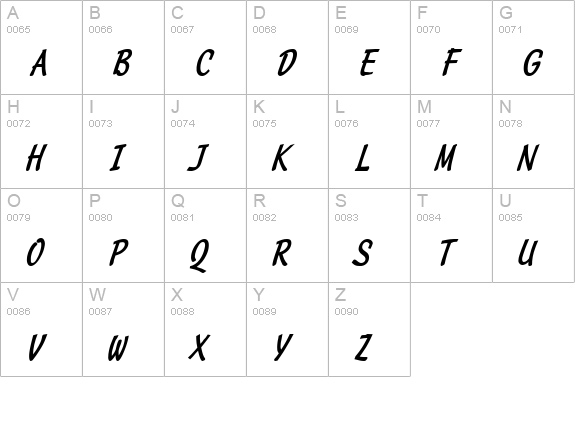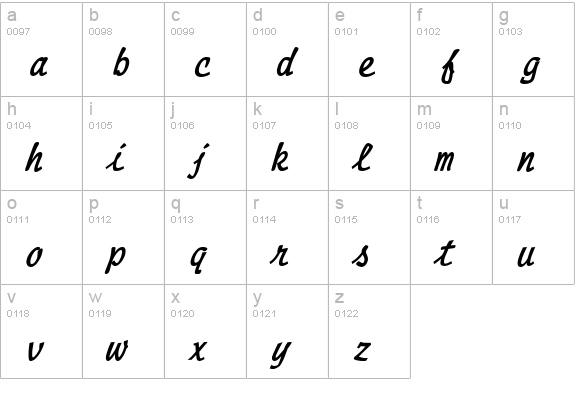
Manuscript Condensed BoldItalic Font Details
Manuscript Condensed BoldItalic is a distinctive, condensed-width variant in the Manuscript typeface family \xE2\x80\x94 well suited to design and typography projects.
Manuscript Condensed BoldItalic font is a visually striking and elegant typeface that adds a touch of sophistication to any design project. With its bold and italicized form, this font exudes a sense of confidence and style. Designed with attention to detail, Manuscript Condensed BoldItalic font is perfect for creating impactful headlines, eye-catching logos, and captivating typography compositions. Its condensed nature allows for efficient use of space without compromising legibility, making it a versatile choice for both print and digital designs. This font's bold and italicized characteristics lend themselves well to projects that require a strong and impactful visual presence. Whether it's a book cover, a branding campaign, or a website header, Manuscript Condensed BoldItalic font will ensure your message is communicated with flair and authority. One of the best things about Manuscript Condensed BoldItalic font is that it is freely available to download at FontsMarket.com. This means that you can easily access and use this font in your creative projects without any cost. It's a fantastic opportunity to elevate your designs without breaking the bank. So, if you're looking for a font that combines elegance, boldness, and a touch of flair, look no further than Manuscript Condensed BoldItalic. Download it for free at FontsMarket.com and let your creativity soar.